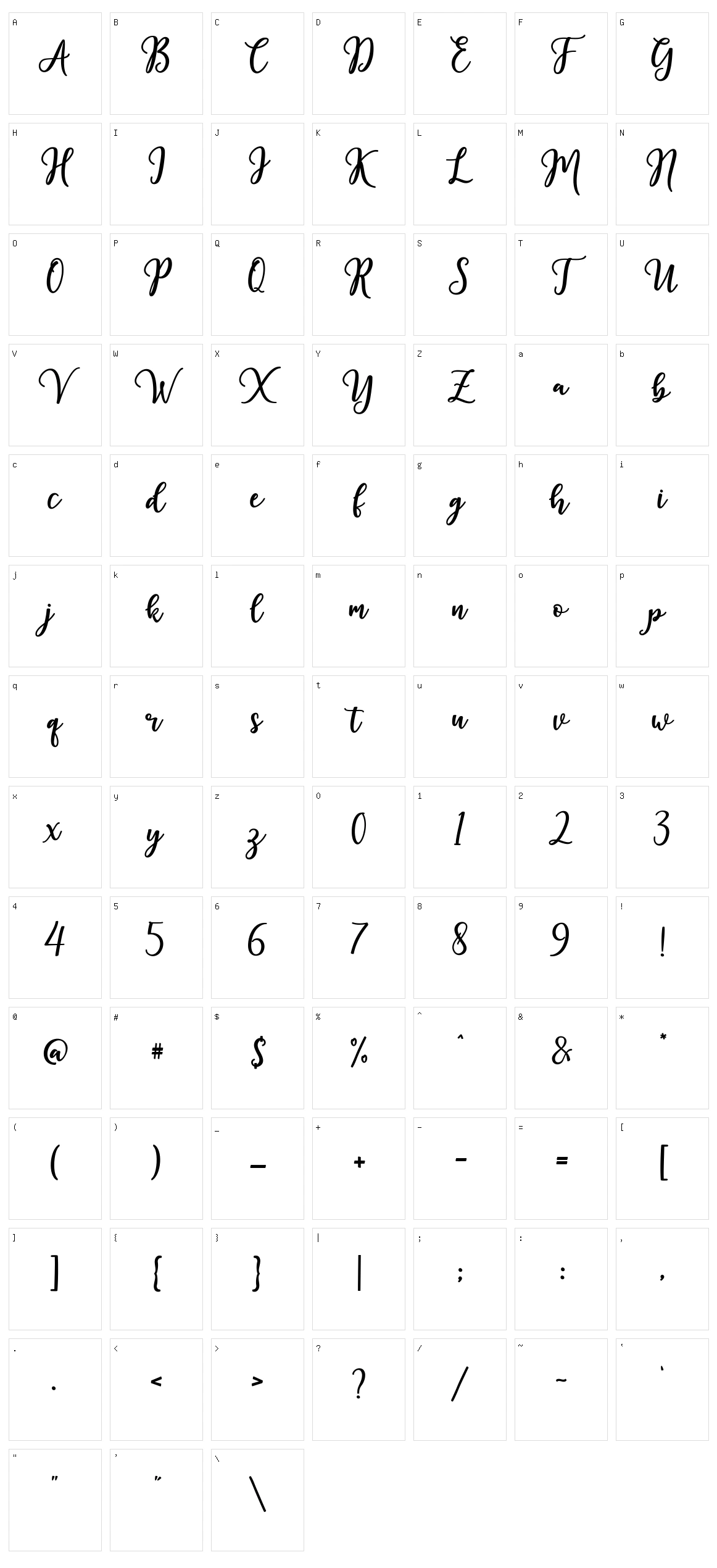
The free font Hista is carefully designed by Best Font Studio, showcasing a thoughtful balance of creativity and usability and falls under the Script font style. When you download the ZIP file, it contains only 147.32 KB of font files, making it lightweight and quick to download. Please review the license details below to understand permitted usage and distribution rights. If license information is not available, we recommend using this font for personal projects only or contacting the author directly for commercial usage permissions.